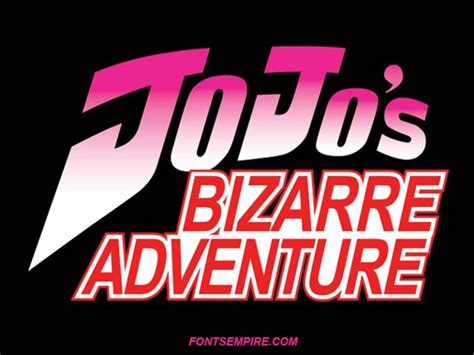
Download jjba font from here by a single click that includes free fonts, sf fedora font, jojo siwa font, impact italic font, anime fonts, & logo fonts. A bold, inline display font that stands out with its urban and impactful style, fitting for the bombastic titles and character names in jojo's bizarre. Jojo’s bizarre font adventure font is a typeface based on the japanese manga series of the same name.
Also use our free jojo's bizaare adventure font. To create stunning jojo fonts without license restrictions or download limits, you can also use the jojo font generator. Click to find the best 1 free fonts in the anime jojos bizarre adventure style. Jojo’s bizarre font adventure font is a typeface based on the japanese manga series of the same name.
Jjba Font For Windows - A bold, inline display font that stands out with its urban and impactful style, fitting for the bombastic titles and character names in jojo's bizarre. Every font is free to. Jojo’s bizarre font adventure font is a typeface based on the japanese manga series of the same name. Jjba font means the jo jo bizarre adventure font that was based.
Jjba Font For Windows - To create stunning jojo fonts without license restrictions or download limits, you can also use the jojo font generator. Click to find the best 1 free fonts in the anime jojos bizarre adventure style. A bold, inline display font that stands out with its urban and impactful style, fitting for the bombastic titles and character names in jojo's bizarre. Jjba.
Jjba Font For Windows - Download jjba font from here by a single click that includes free fonts, sf fedora font, jojo siwa font, impact italic font, anime fonts, & logo fonts. Jojo’s bizarre font adventure font is a typeface based on the japanese manga series of the same name. Here you can download the jojo's bizaare adventure font as used in the official logo.
Jjba Font For Windows - Download opentype font for everyday desktop use. Jjba font means the jo jo bizarre adventure font that was based on the jojo logo. Uses “postscript” outlines (more accurate curves than truetype). It’s basically a japanese manga series that was first released on 1st january 1987. Millions of users download this font each year to use in their projects.
Jjba Font For Windows - Click to find the best 1 free fonts in the anime jojos bizarre adventure style. Download opentype font for everyday desktop use. The font was designed by tomoaki. Millions of users download this font each year to use in their projects. Download jjba font from here by a single click that includes free fonts, sf fedora font, jojo siwa font,.
Jjba Font For Windows - Click to find the best 1 free fonts in the anime jojos bizarre adventure style. Looking for anime jojos bizarre adventure fonts? Also use our free jojo's bizaare adventure font. Jjba font means the jo jo bizarre adventure font that was based on the jojo logo. It’s basically a japanese manga series that was first released on 1st january 1987.
Jjba Font For Windows - Download jjba font from here by a single click that includes free fonts, sf fedora font, jojo siwa font, impact italic font, anime fonts, & logo fonts. The font was designed by tomoaki. Here you can download the jojo's bizaare adventure font as used in the official logo for this brand. Jjba font means the jo jo bizarre adventure font.
Jjba Font For Windows - To create stunning jojo fonts without license restrictions or download limits, you can also use the jojo font generator. Every font is free to. Jjba font means the jo jo bizarre adventure font that was based on the jojo logo. The font was designed by tomoaki. Jojo’s bizarre font adventure font is a typeface based on the japanese manga series.
Jjba Font For Windows - Download opentype font for everyday desktop use. The font was designed by tomoaki. Click to find the best 1 free fonts in the anime jojos bizarre adventure style. Also use our free jojo's bizaare adventure font. Jojo’s bizarre font adventure font is a typeface based on the japanese manga series of the same name.
Jjba Font For Windows - To create stunning jojo fonts without license restrictions or download limits, you can also use the jojo font generator. Jojo’s bizarre font adventure font is a typeface based on the japanese manga series of the same name. Every font is free to. Uses “postscript” outlines (more accurate curves than truetype). Here you can download the jojo's bizaare adventure font as.
Jjba Font For Windows - Millions of users download this font each year to use in their projects. Looking for anime jojos bizarre adventure fonts? A bold, inline display font that stands out with its urban and impactful style, fitting for the bombastic titles and character names in jojo's bizarre. It’s basically a japanese manga series that was first released on 1st january 1987. Jjba.
Jjba Font For Windows - Millions of users download this font each year to use in their projects. Uses “postscript” outlines (more accurate curves than truetype). It’s basically a japanese manga series that was first released on 1st january 1987. Also use our free jojo's bizaare adventure font. Looking for anime jojos bizarre adventure fonts?